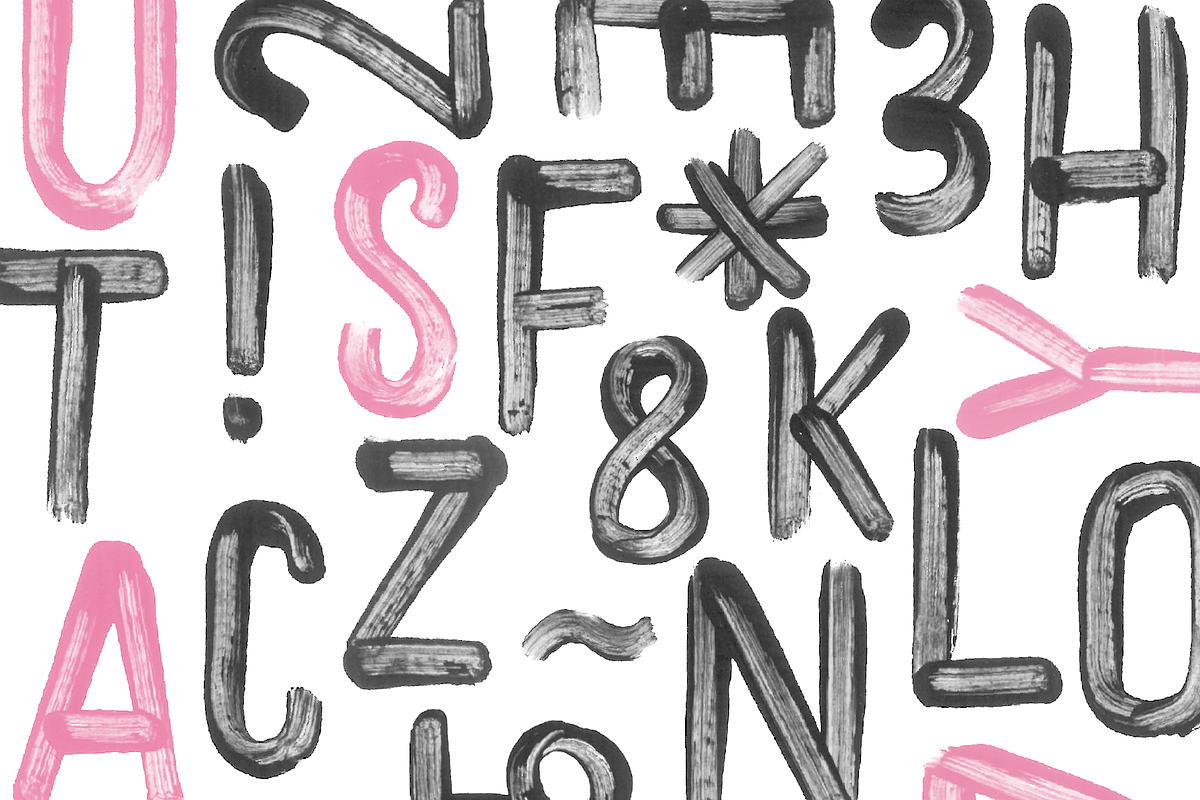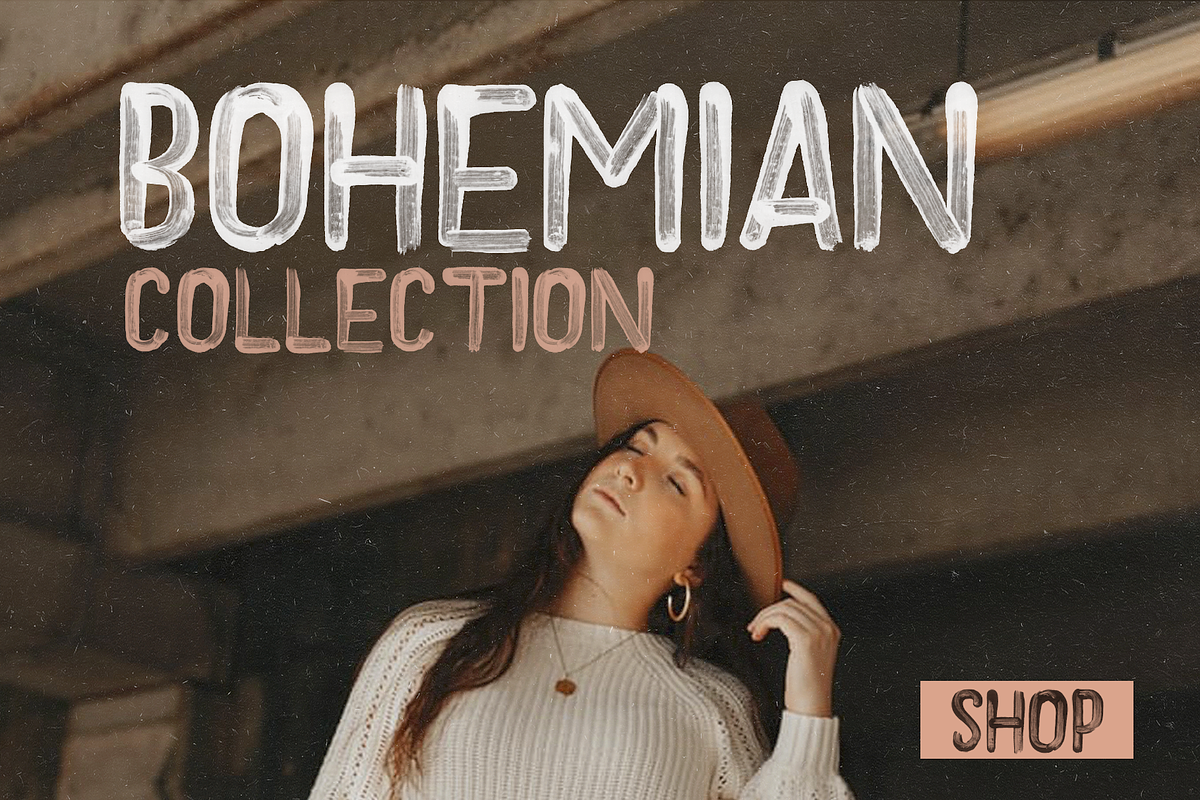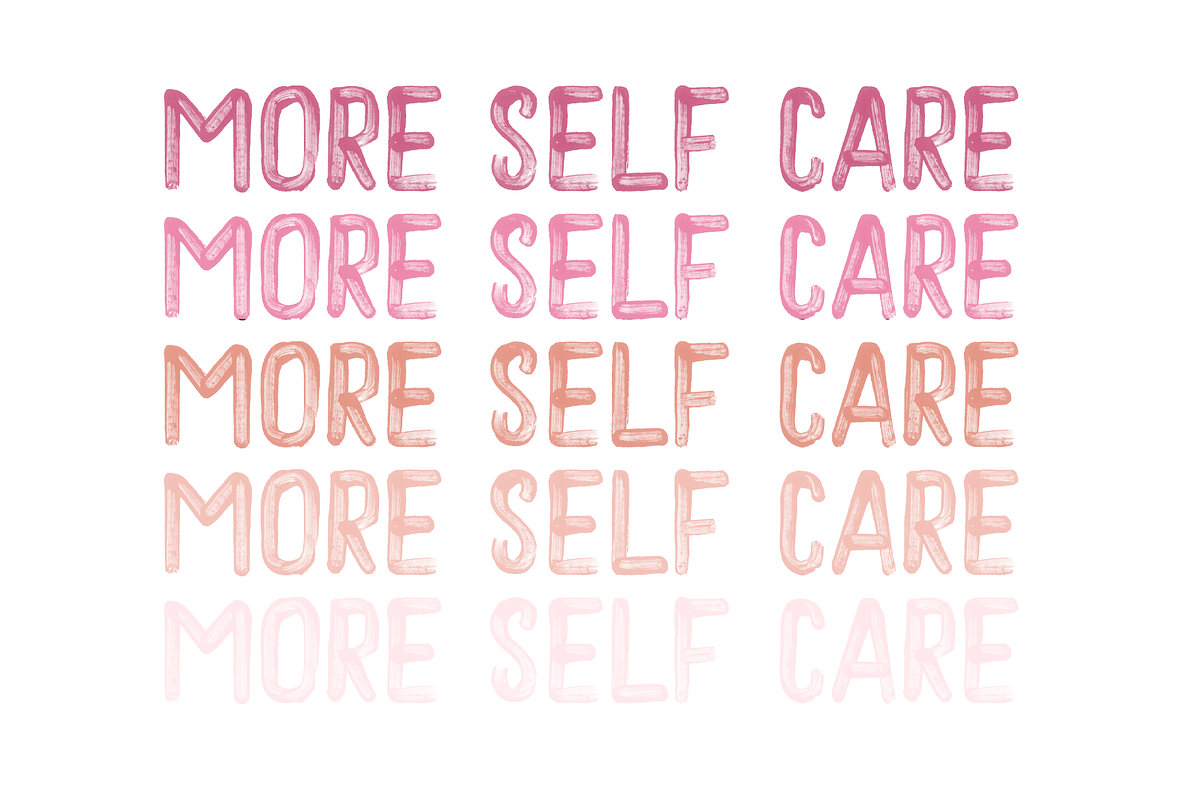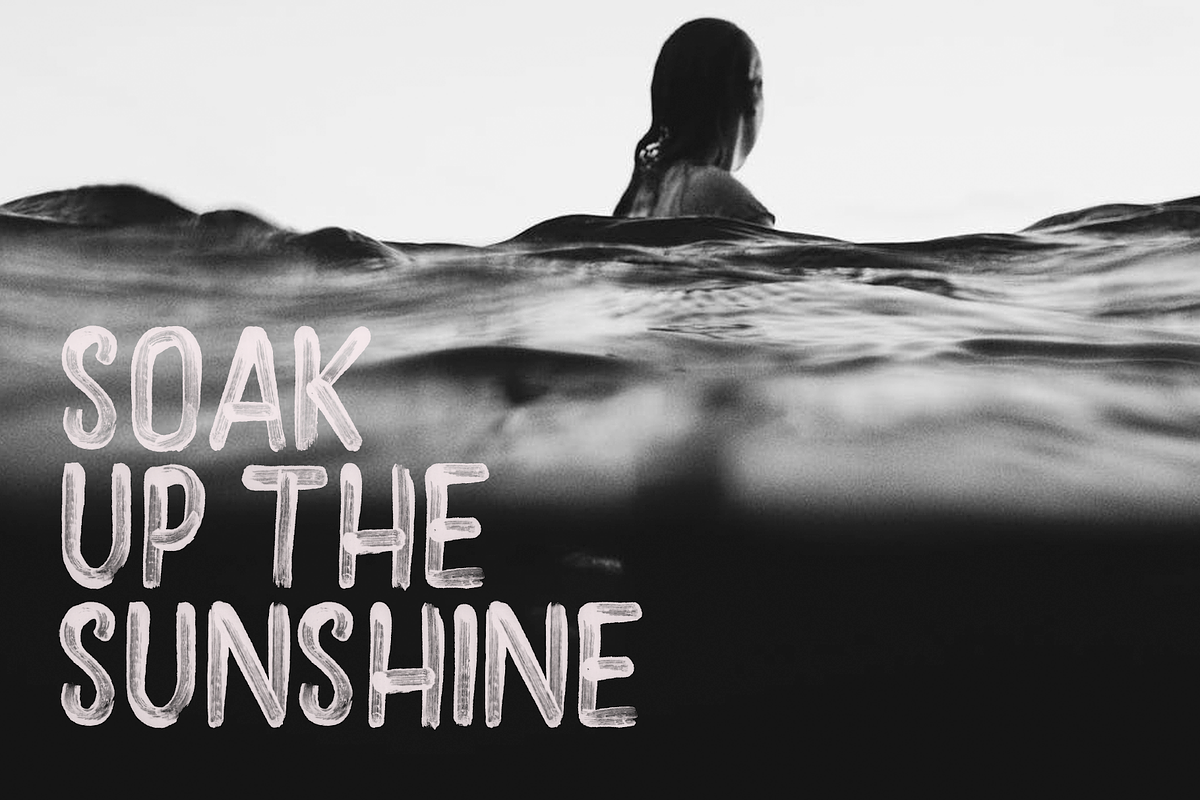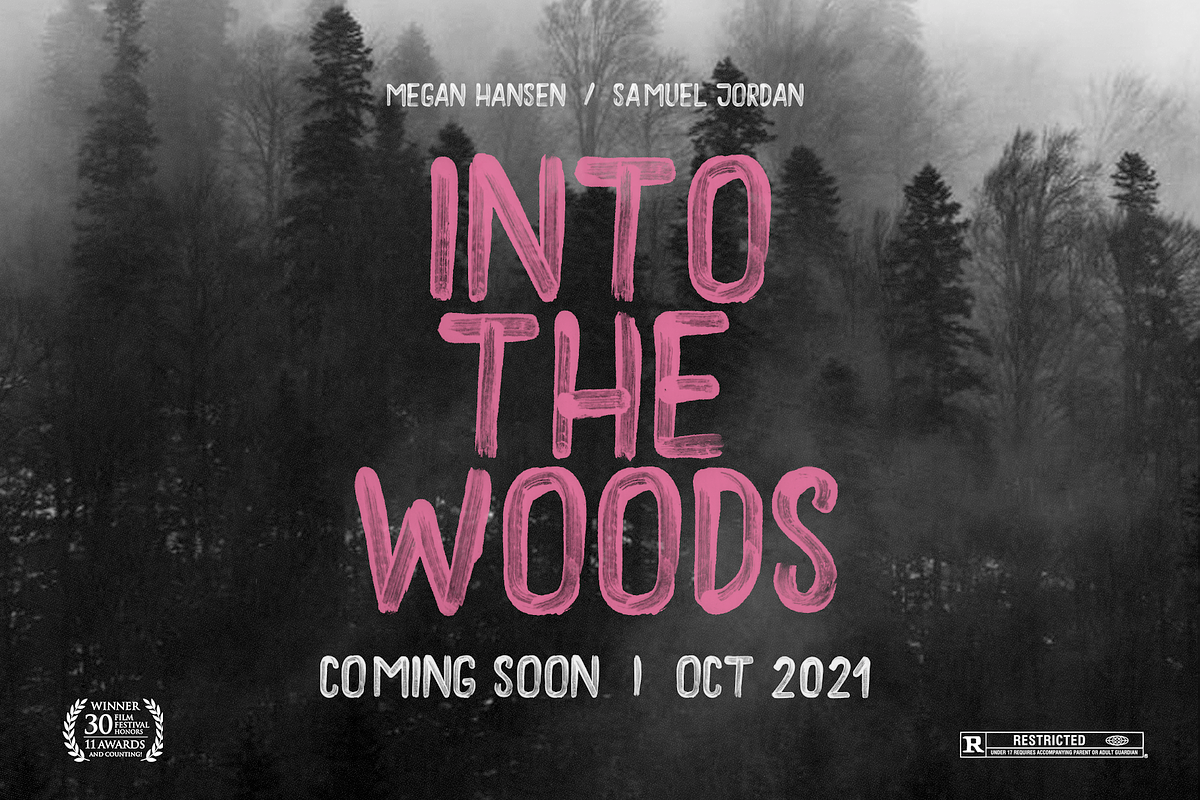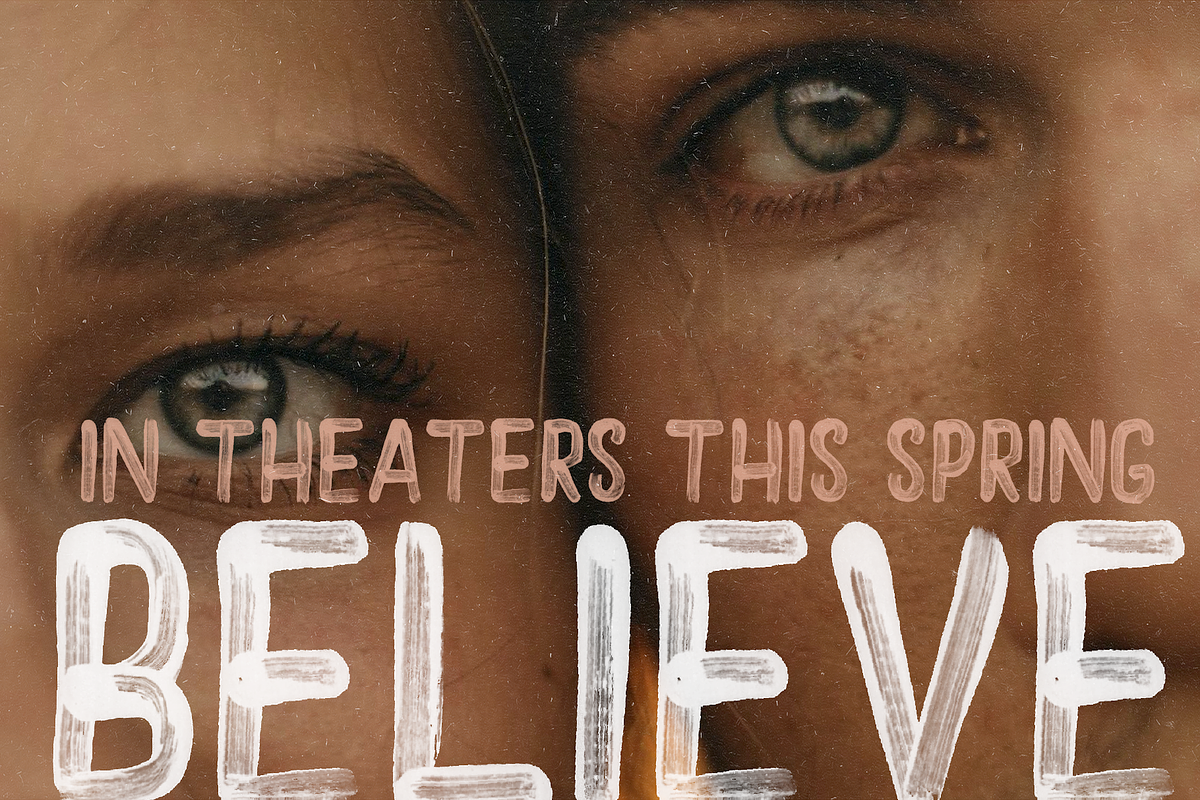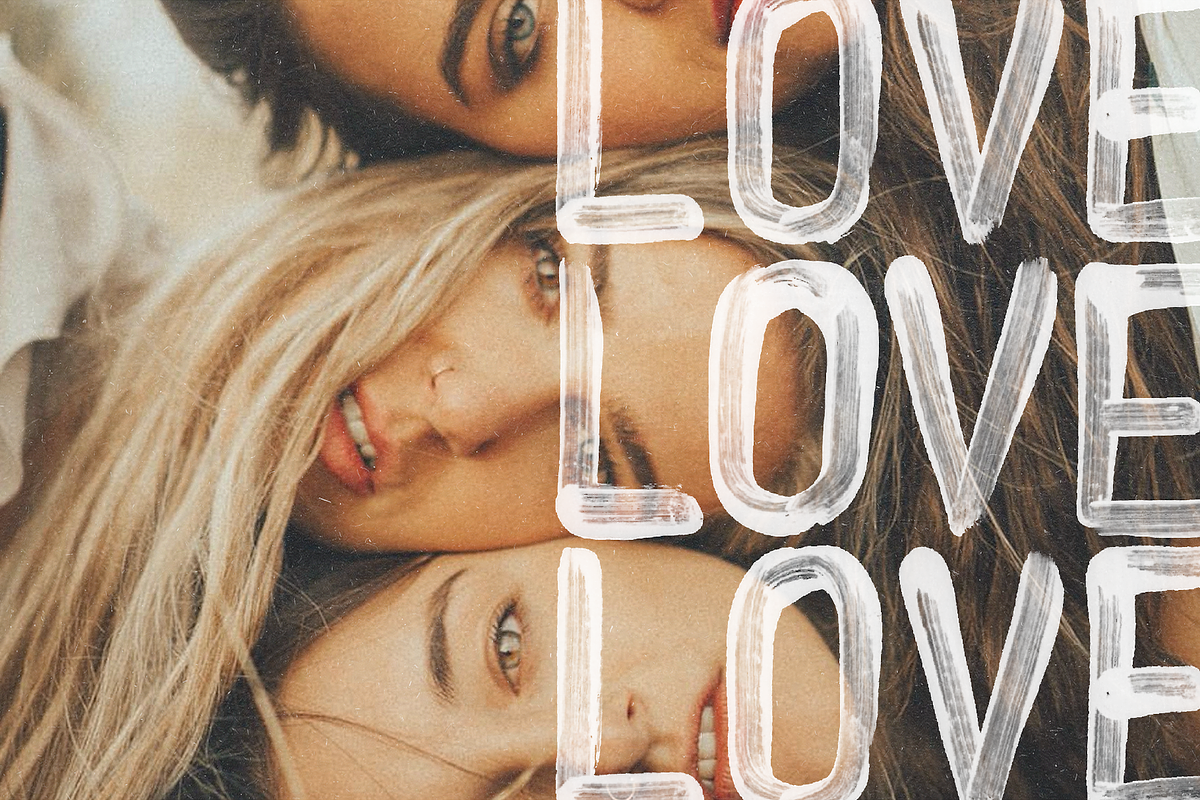
Shine | Brush & SVG Font
Shine is a brush font in regular and svg styles.
This font is perfect for advertisements, social media, invitations, web, blogs, instagram, invitations, display posters, modern designs and more!
Each letter has been drawn by hand keeping the untouched texture for the SVG font. If you are unable to access SVG fonts, a solid style is accessible.